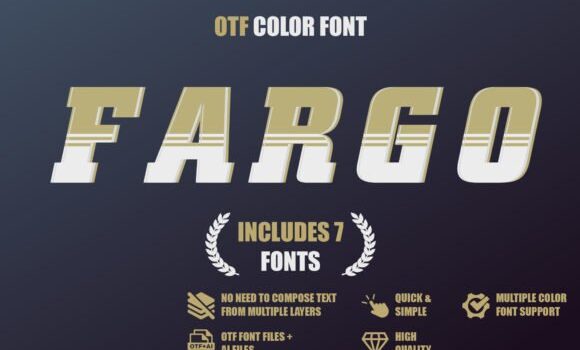
fargo
Fargo Font – Free Download Introduction to Fargo Font Fargo is a bold, thick lettered color font. 📸 Preview Gallery 6 images 📌 Product Name Fargo Font 👤 Author pixnugget 📂 Category Explore ⬇️ Download Fargo Font FREE Free Download